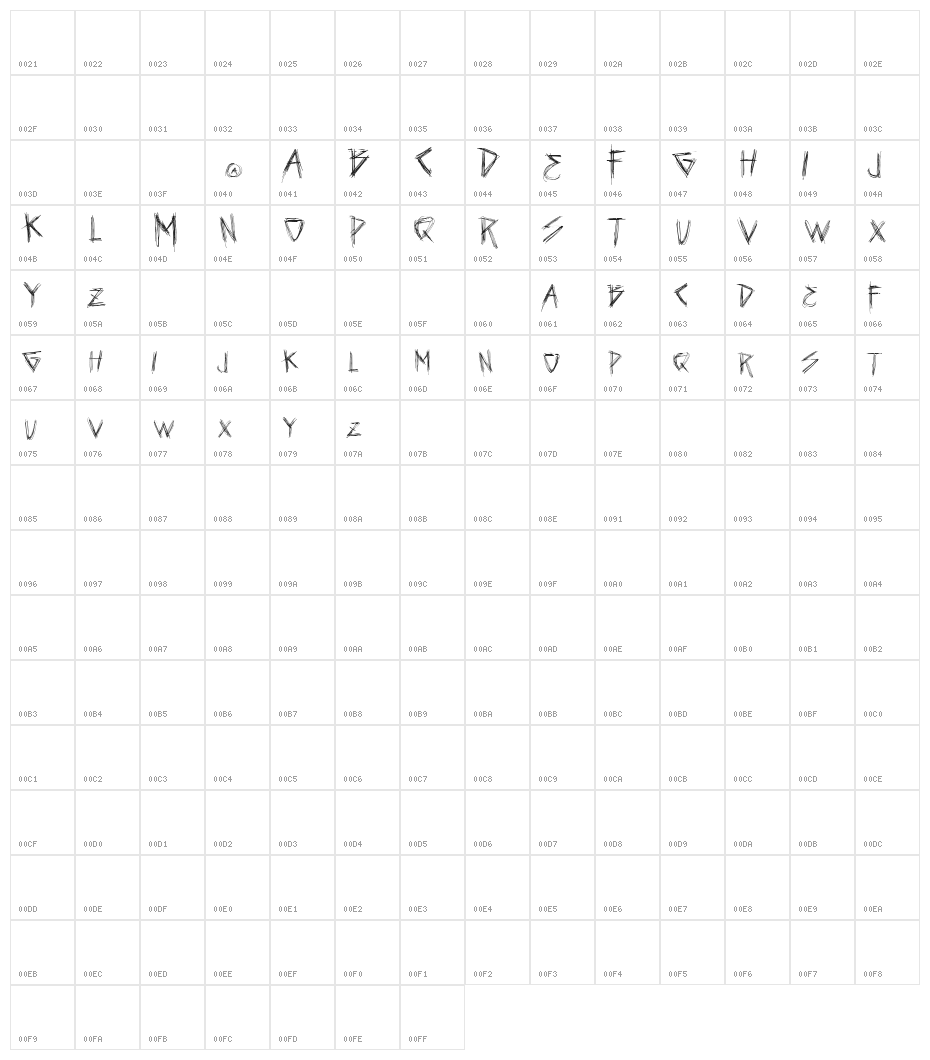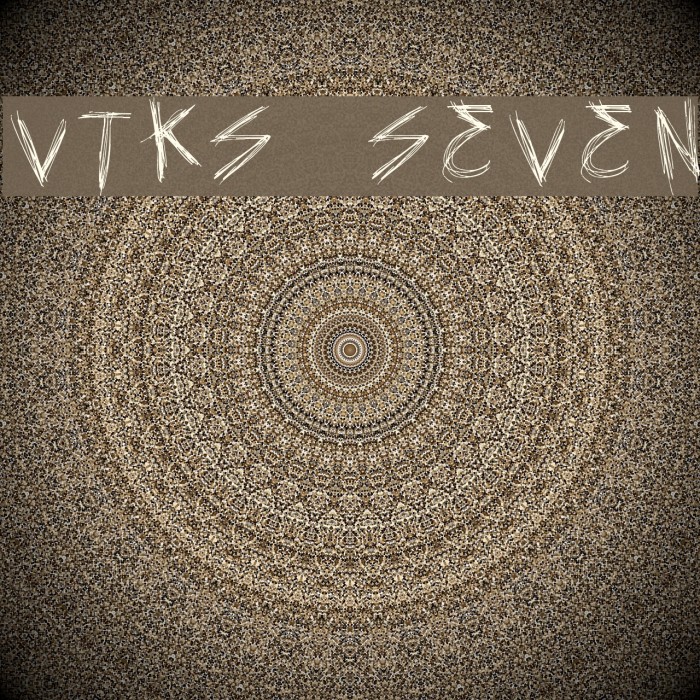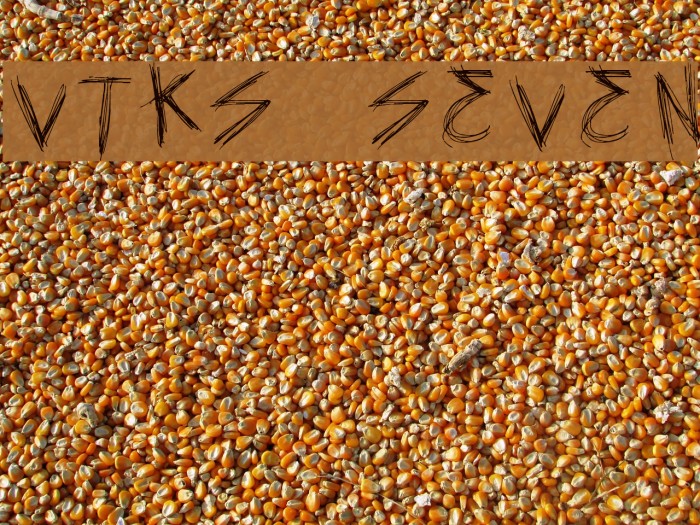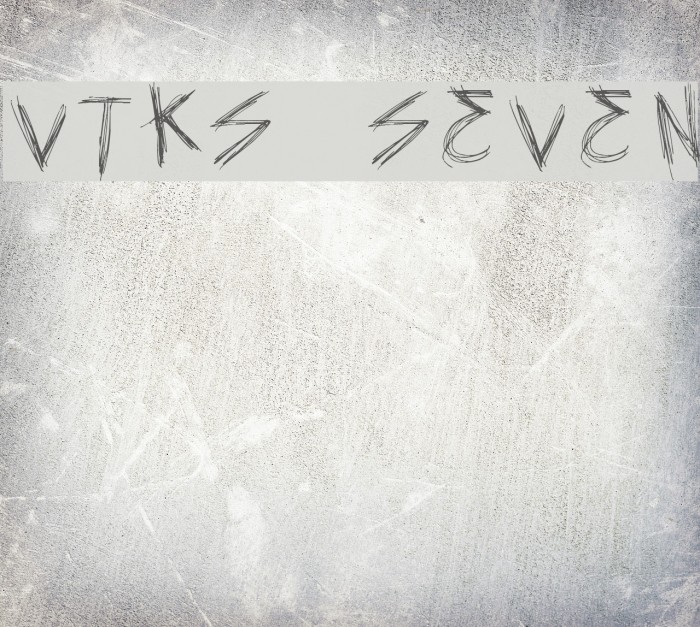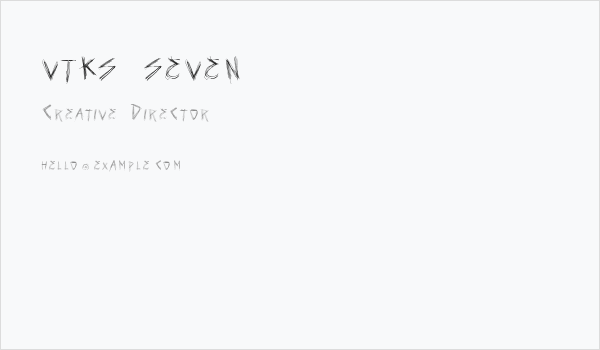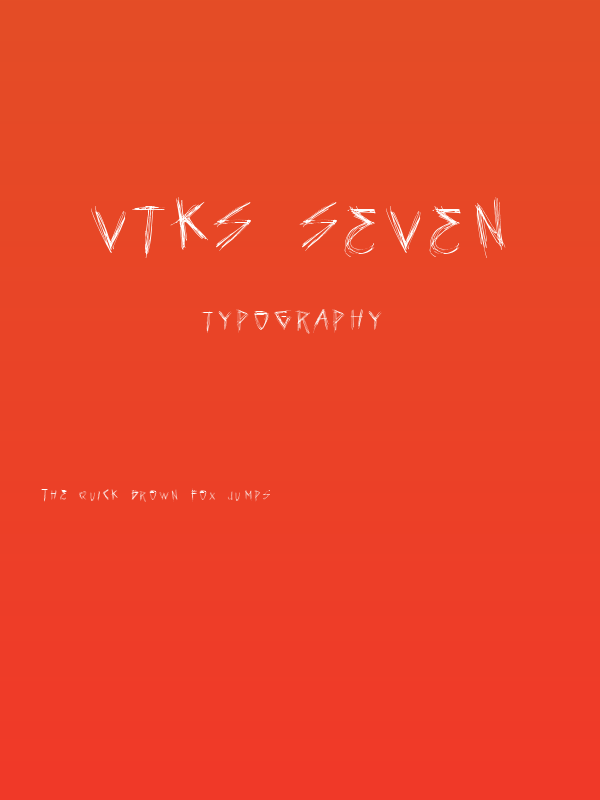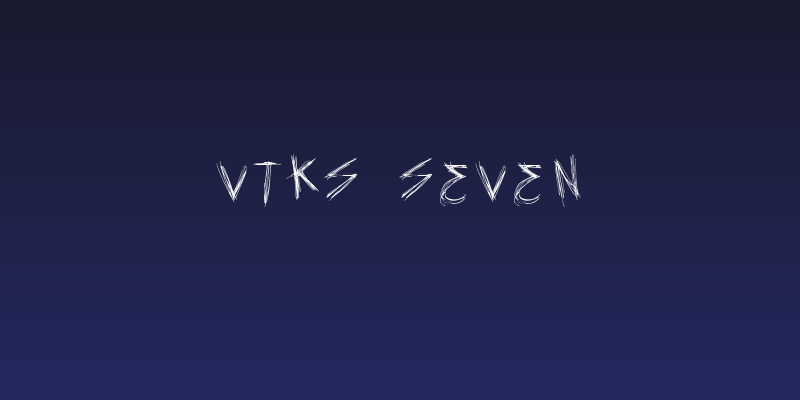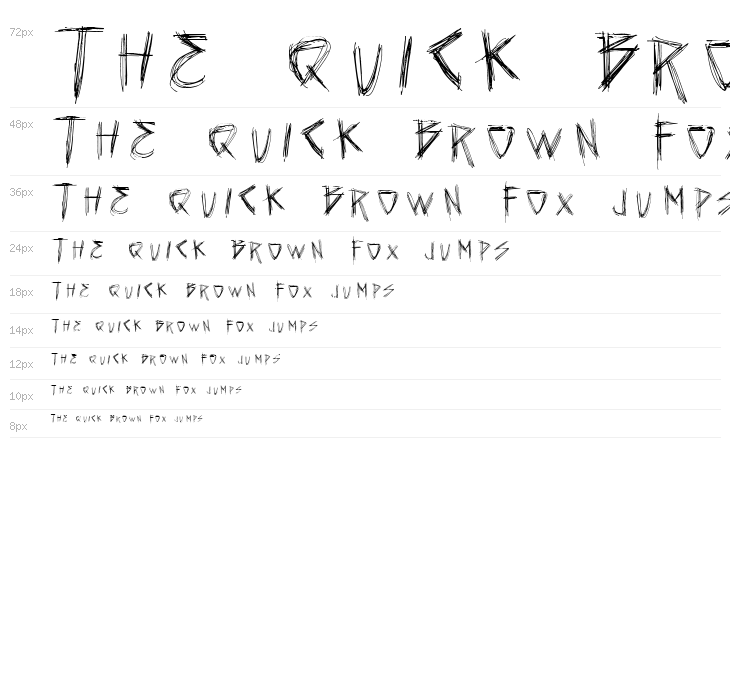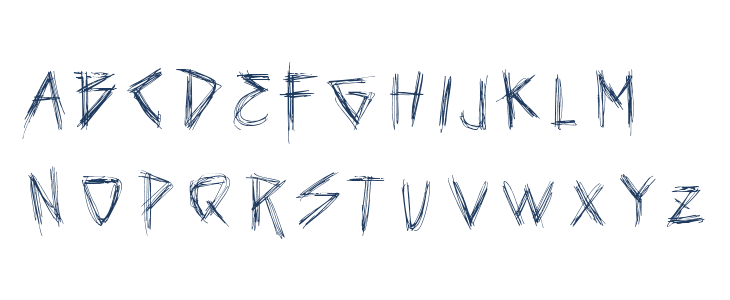
vtks seven Font
vtks seven Description
This font exhibits a raw, edgy style with a hand-drawn appearance. The letters are characterized by uneven, jagged strokes that give it a chaotic and energetic feel. Each character appears as if it has been sketched multiple times, creating a sense of movement and dynamism. The irregularity in the lines adds a unique texture, making it stand out as a bold statement piece. This font is ideal for projects that require a rebellious or unconventional aesthetic, such as music album covers, posters, or any creative work that seeks to break away from traditional norms.
| Proposed Projects | Ideal for music album covers, edgy posters, and creative projects needing a rebellious touch. |